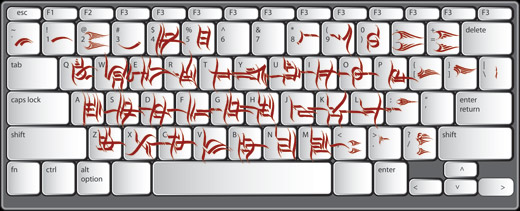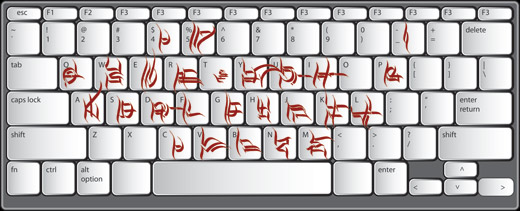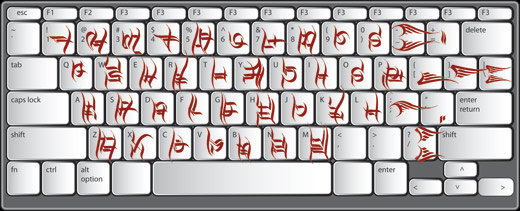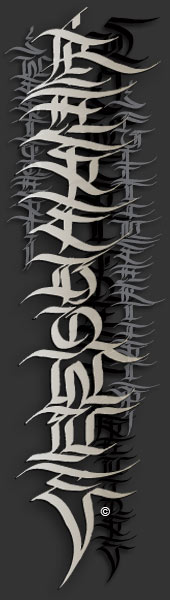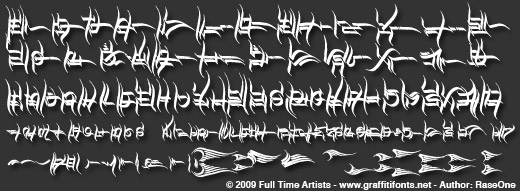
The RaseDowne™ font was created from hundreds of handwritten samples. This style was created by RaseOne & is often used to create tattoo designs, fashion designs & mountable artwork. There are actually nearly 3 full alphabets plus numbers, symbols & a variety of embelishments all included in this one font..
The rough, natural style & imperfect lines help maintain a handmade look. Using the optional glyphs you can try multiple letter combinations untill you get just the right configuration for whatever word or phrase you are trying to make. |